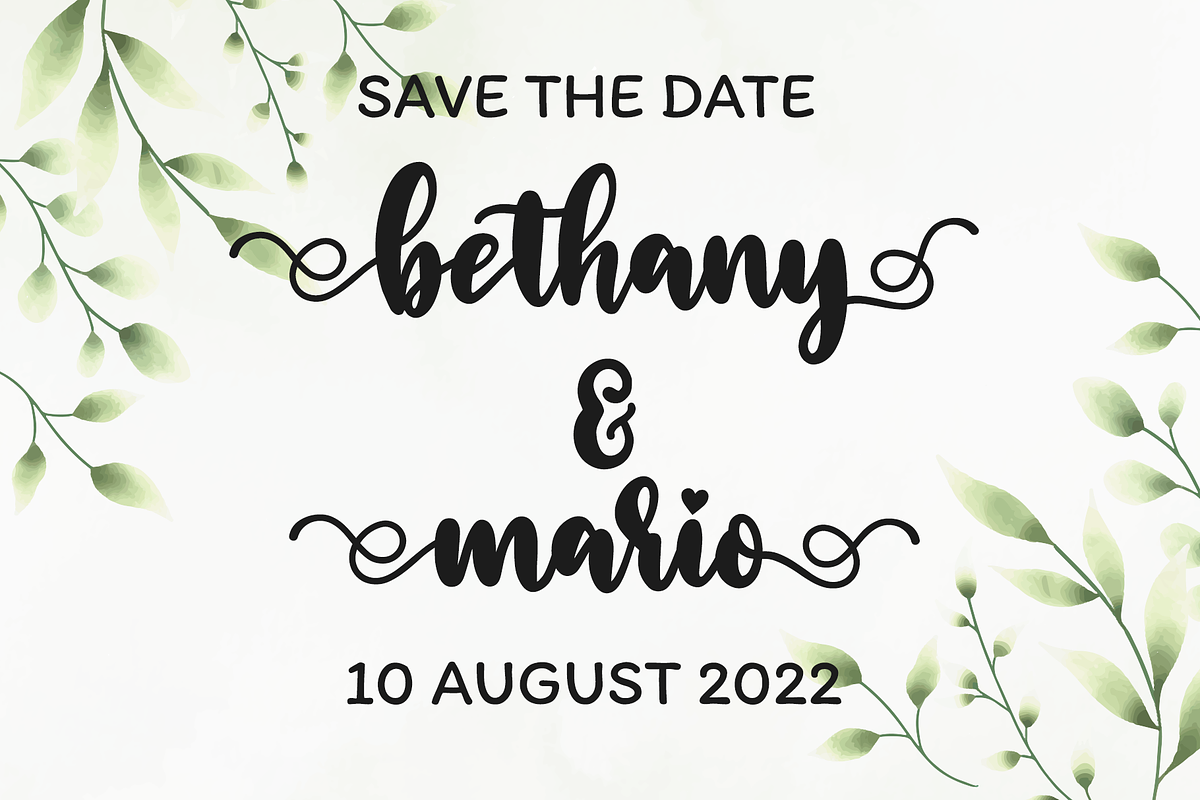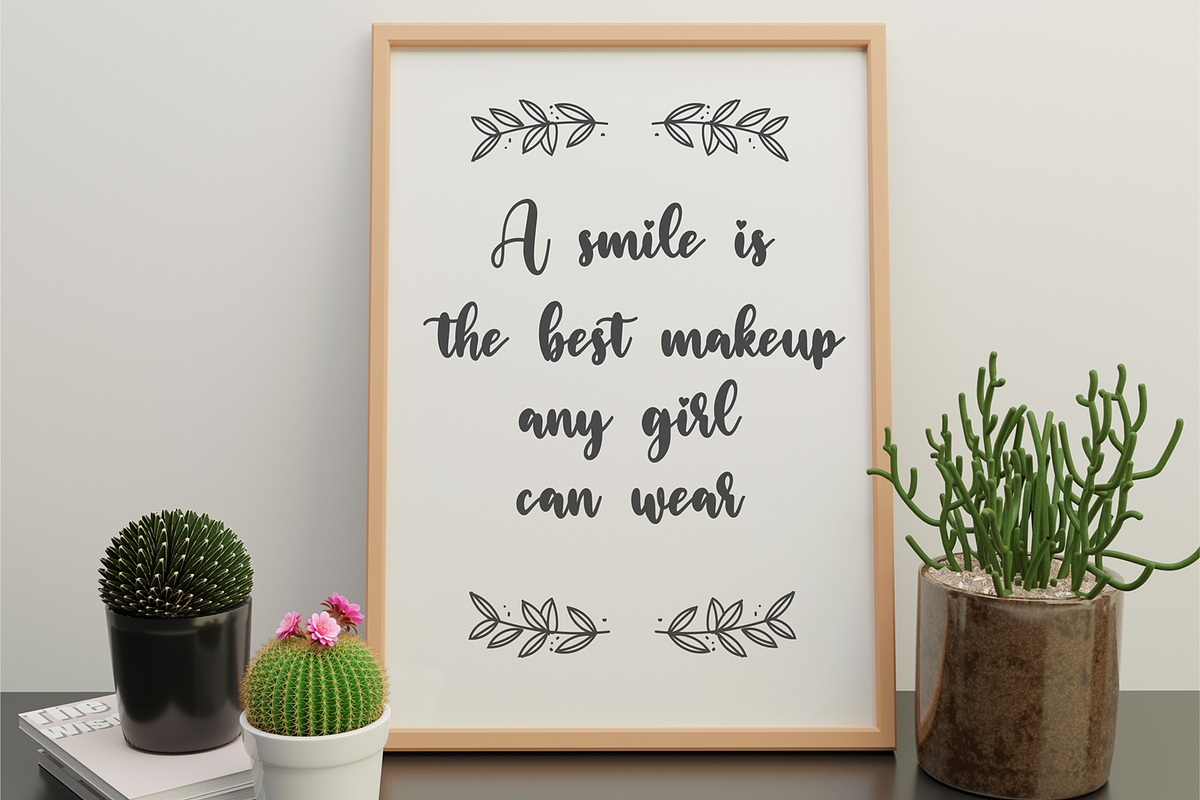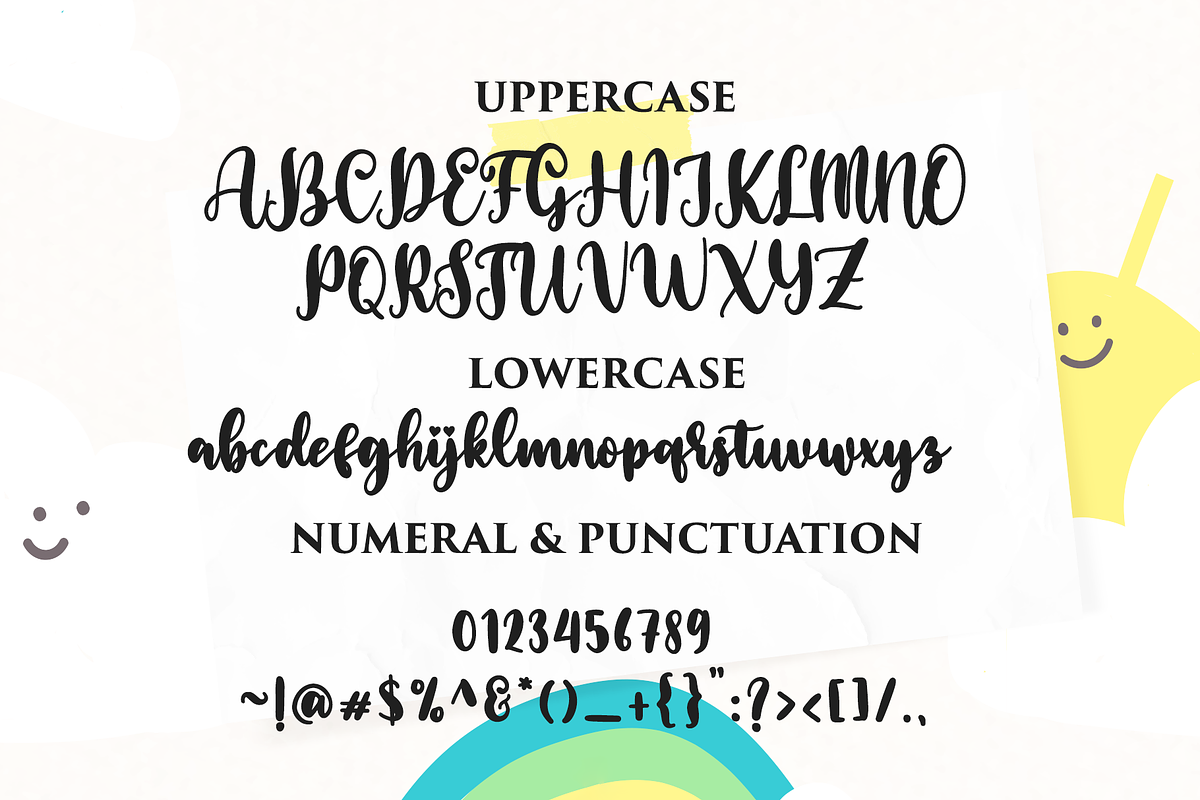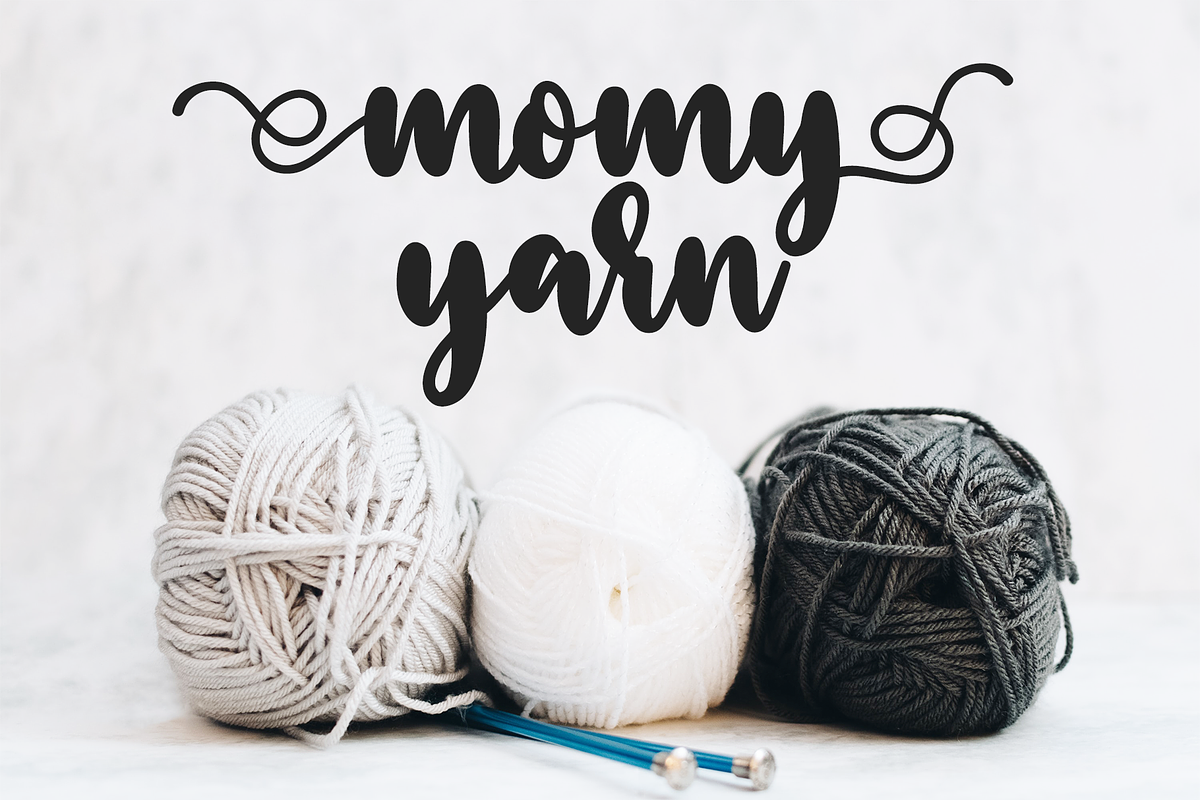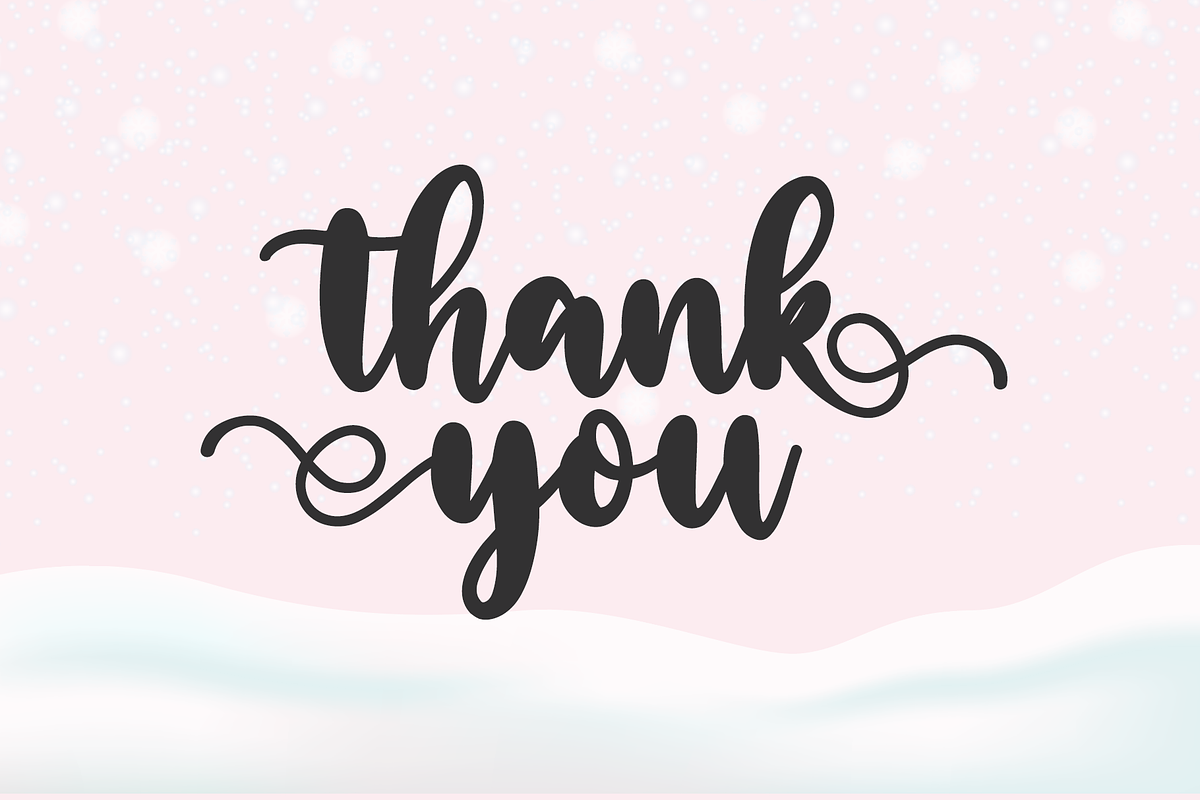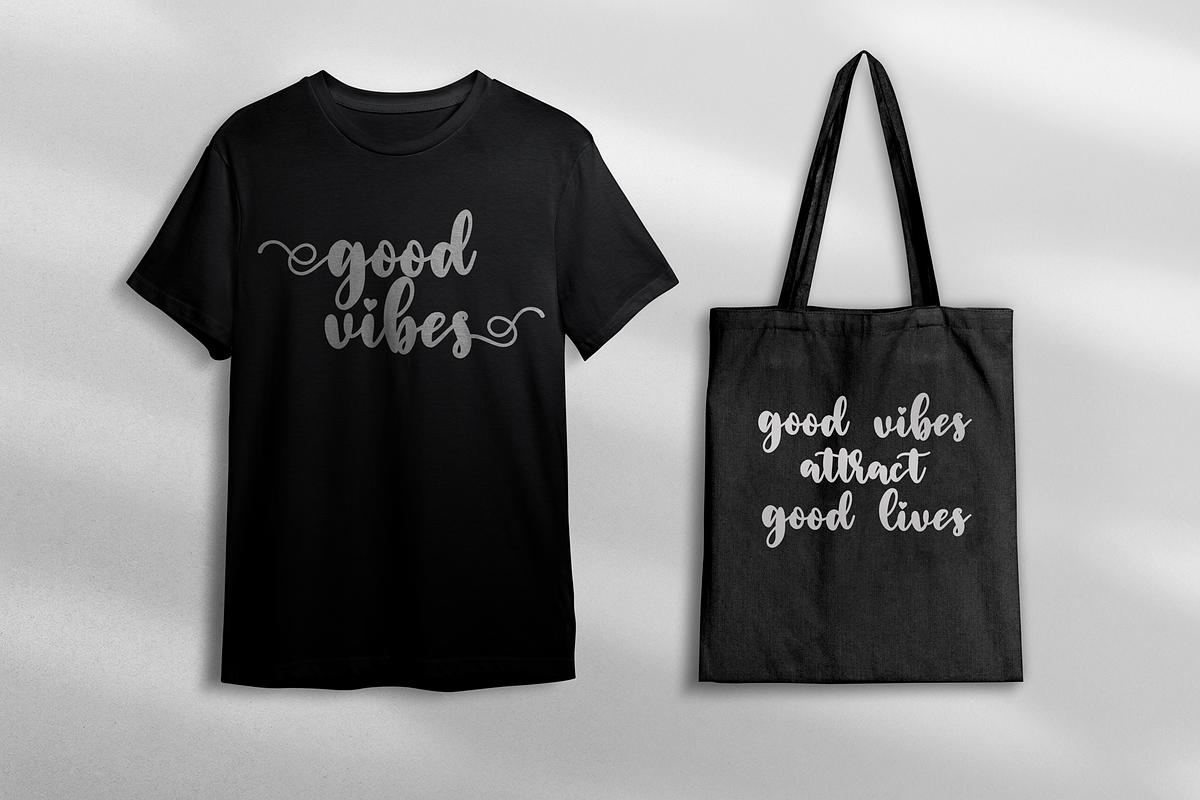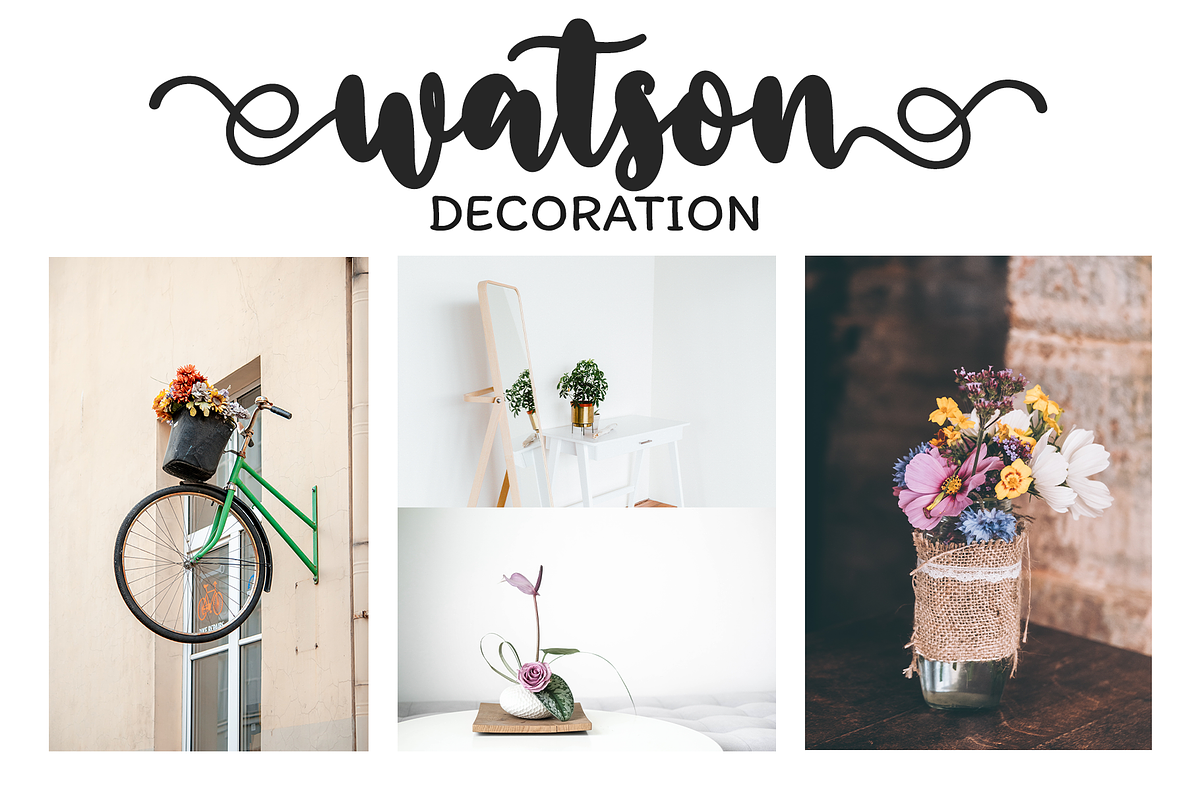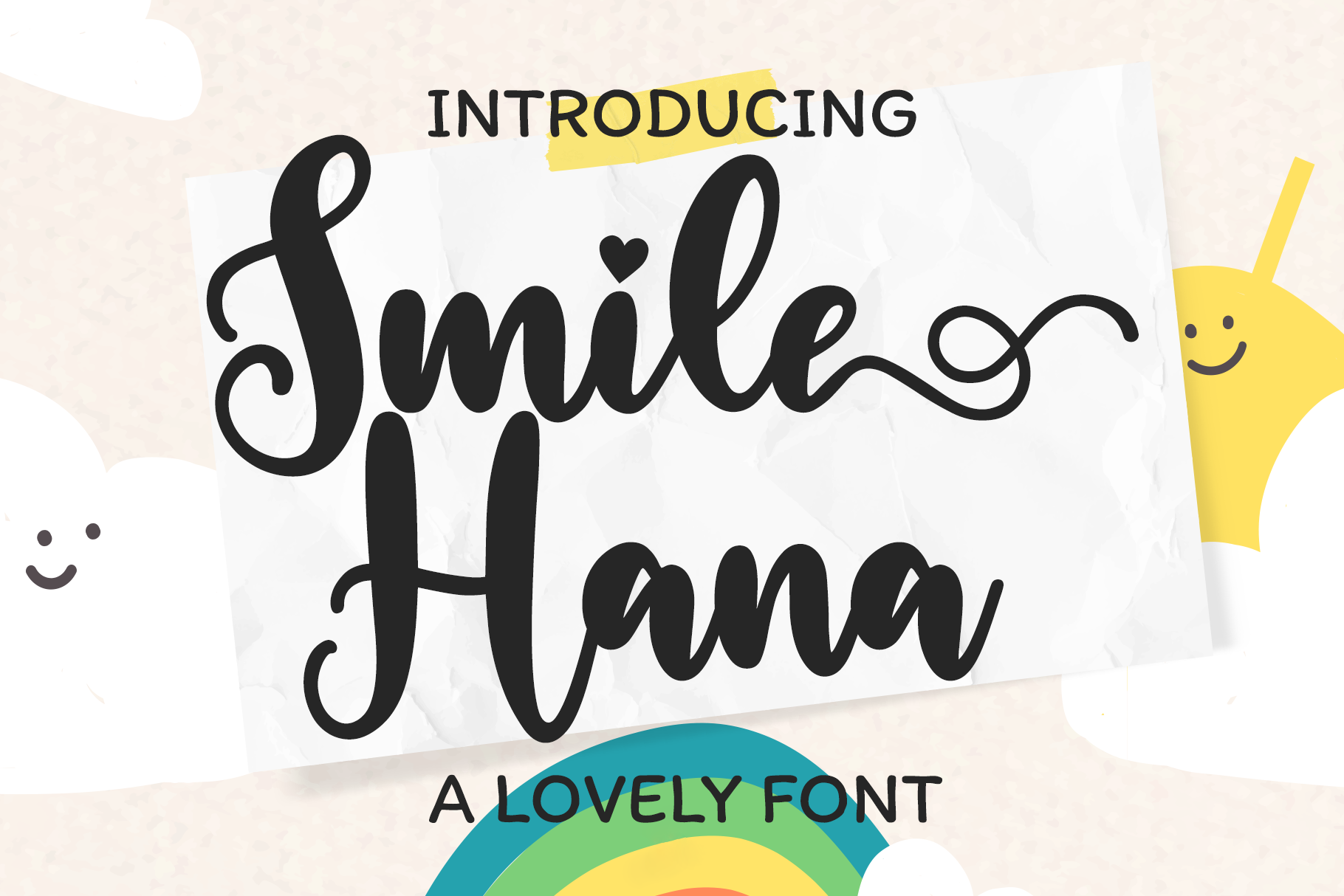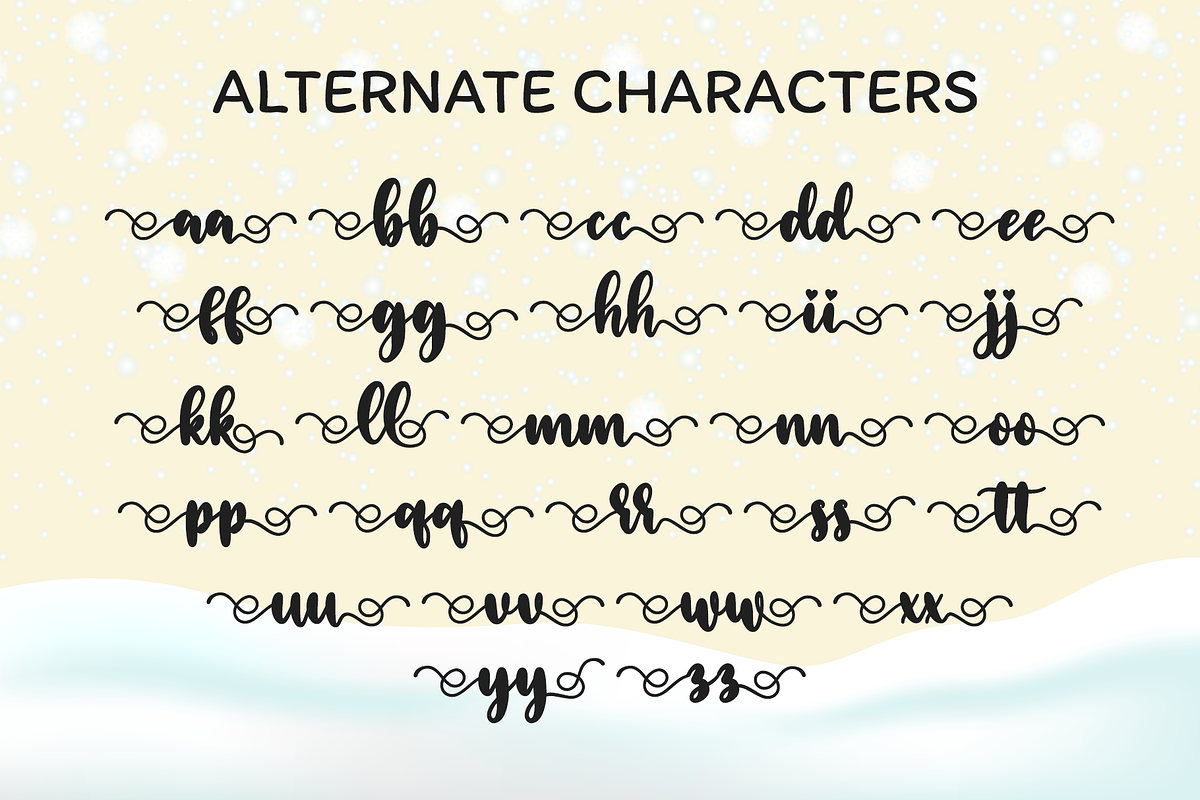
Smile Hana | Calligraphy Font
Smile Hana is a romantic and sweet calligraphy typeface with characters that dance along the baseline. It has a casual, yet elegant touch. This font is PUA encoded which means you can access all of the glyphs and swashes with ease! Files Include :